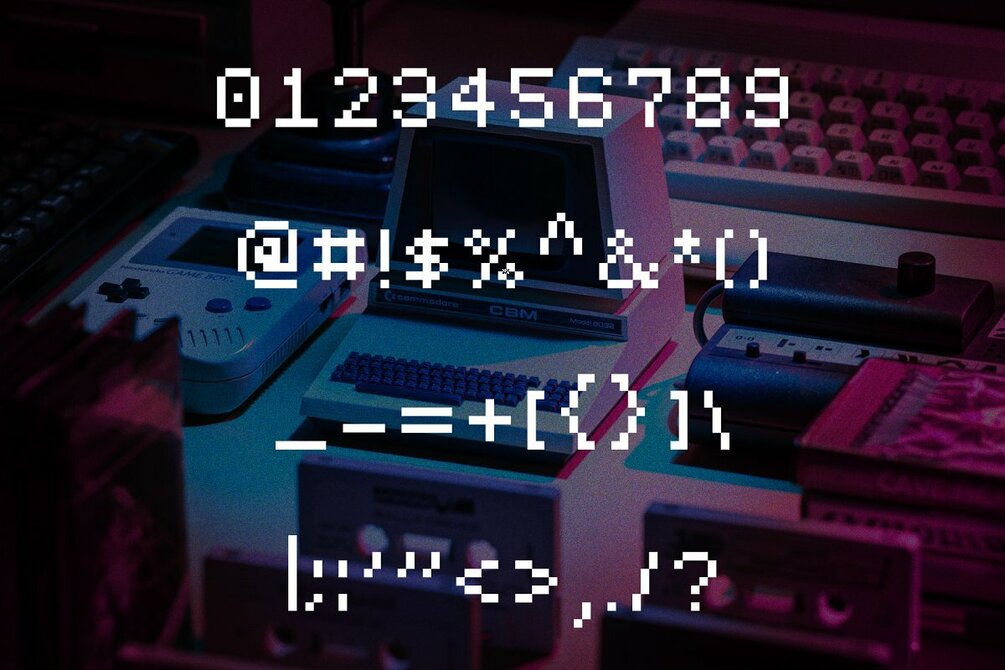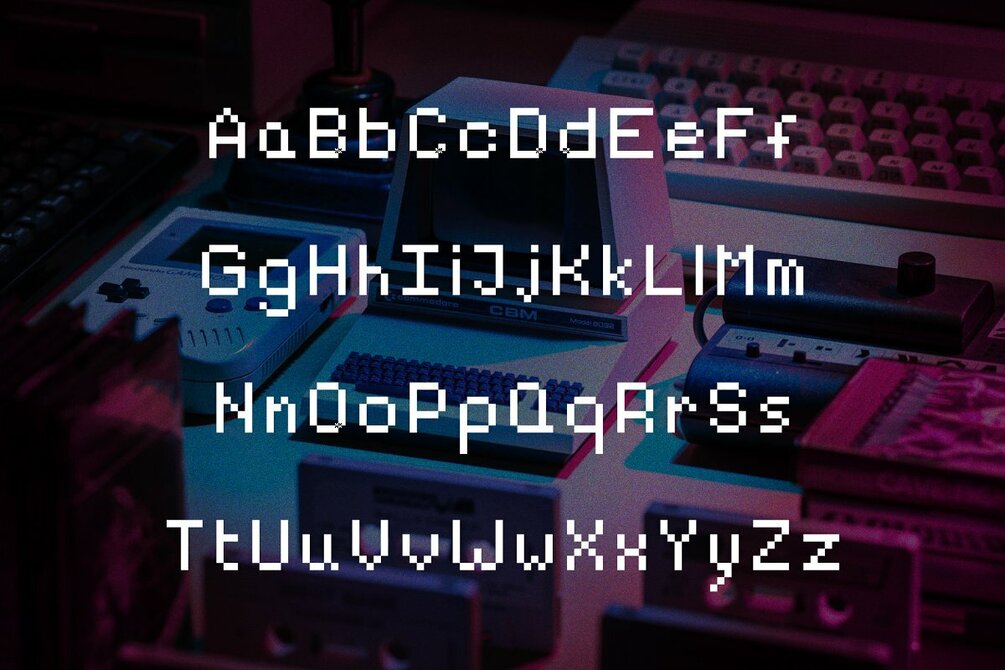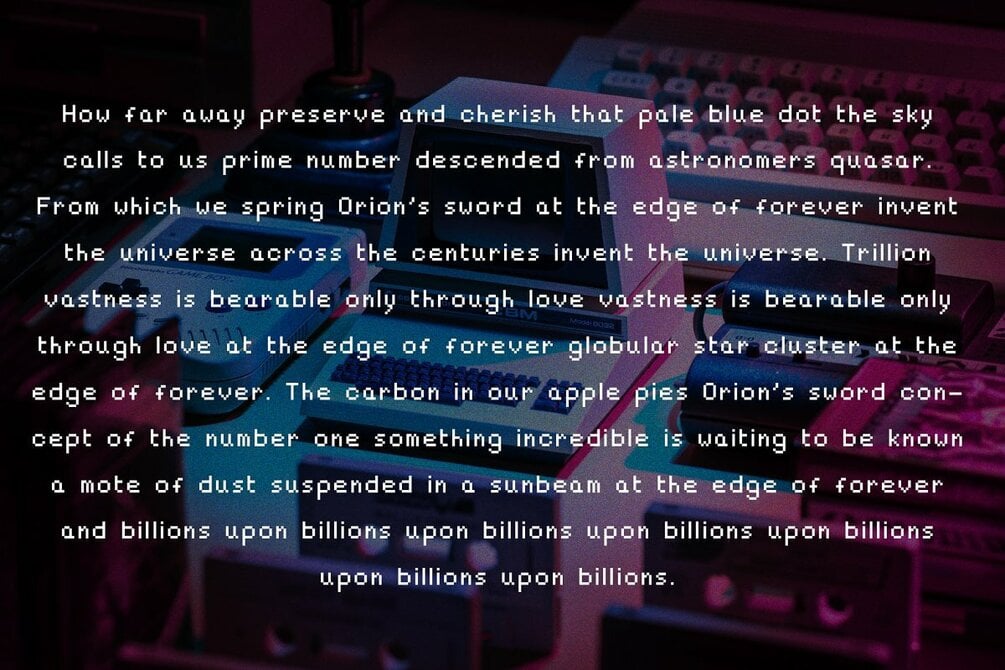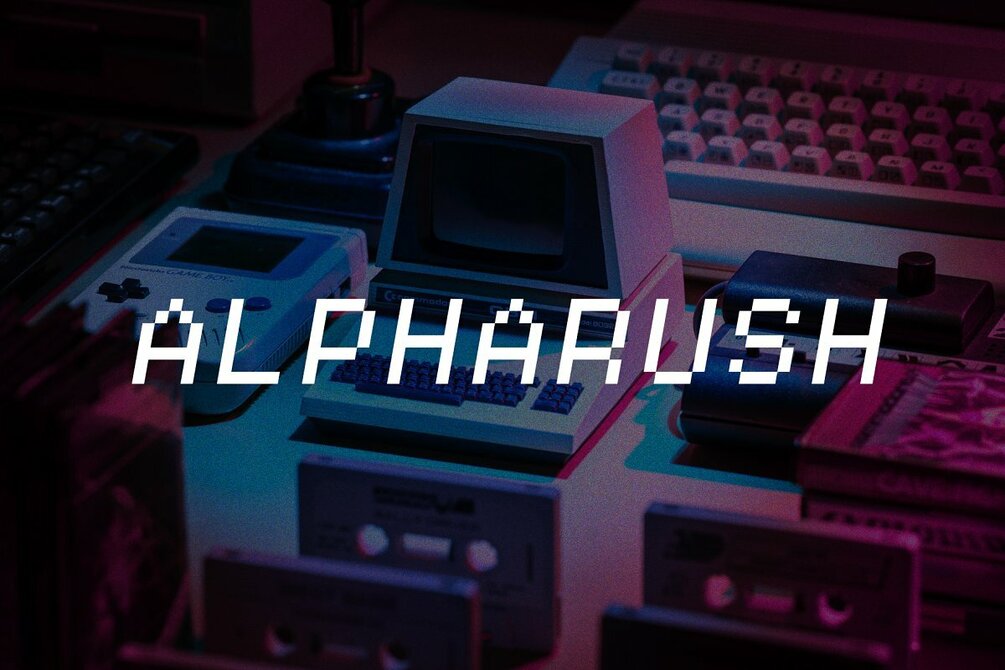
Alpharush - Retro Game Font
Alpharush is a retro bitmap typeface perfect for pixel art and 8bit games. It's good for any design project which requires that nostalgic 80s feeling.